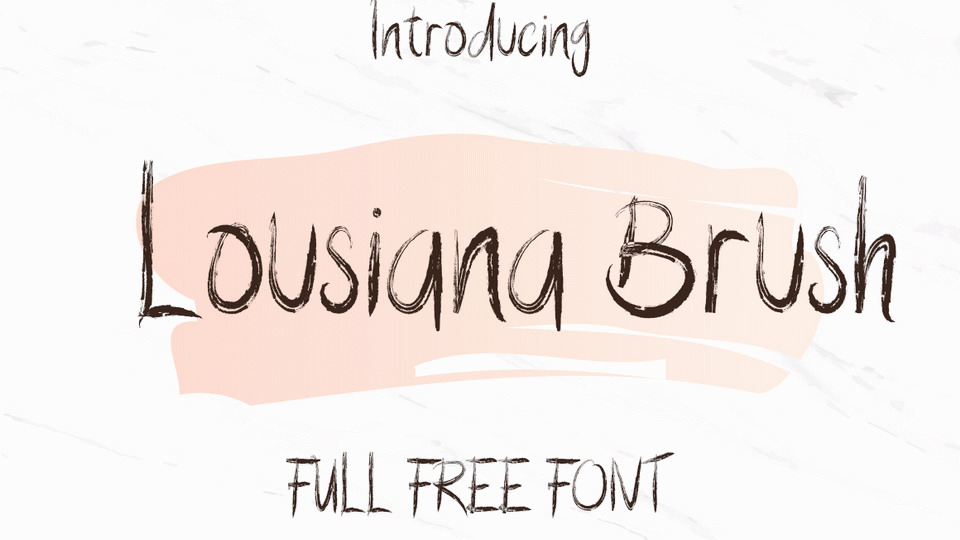
Download Lousiana Brush font, a hand painted rough brush script. It’s suitable for posters, overlays, headlines, t-shirt prints and other creative designs.
Designer: Uloel Design